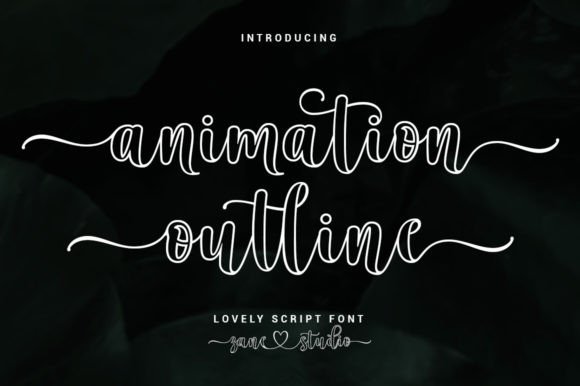
The Elegance of Animation Outline Font: A Designer’s Delight
Ah, the quest for the perfect font. We’ve all been there – scrolling through endless pages of Google Fonts, testing out different styles, and still, nothing seems quite right. I recall working on a wedding invitation project, determined to find a font that exuded elegance and sophistication. That’s when I stumbled upon Animation Outline Font, and it quickly became my go-to choice for a wide range of design projects.
A Stylish and Elegant Script Font
Animation Outline Font is a stylish and incredibly elegant script font that can elevate any design with its handwritten touch. Its versatility makes it perfect for wedding invitations, thank you cards, quotes, greeting cards, logos, business cards, and more. The font’s beautiful outline and flowing script make it an excellent choice for designers, crafters, and creative hobbyists looking to add a touch of sophistication to their work.
- ✨ Elegant and sophisticated design
- ✅ Highly versatile and adaptable
- 💫 Beautiful outline and flowing script
- 🎨 Perfect for a wide range of design projects
The Designer Inspiration Behind Animation Outline Font
The story behind Animation Outline Font is one of passion and creativity. Imagine a designer who spent countless hours perfecting the art of handwriting, seeking to capture the essence of elegance and sophistication in a digital font. With Animation Outline Font, they aimed to create a versatile and beautiful script font that would inspire designers to create stunning works of art.
| Font Name | Animation Outline Font |
| Author | Zane Studio |
| What is Animation Outline Font best used for? | Animation Outline Font is perfect for designs that require a handwritten touch, such as wedding invitations, thank you cards, quotes, greeting cards, logos, and business cards. |
| Is Animation Outline Font suitable for body text? | While Animation Outline Font is beautiful, it’s best suited for headlines, titles, and short paragraphs. Its elegant design may not be ideal for lengthy body text. |